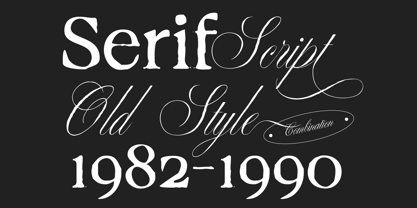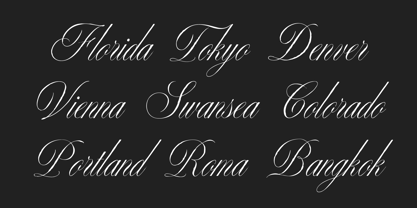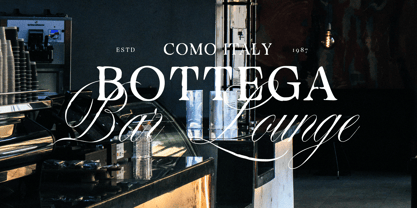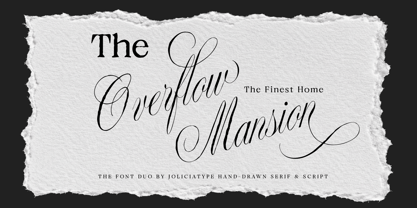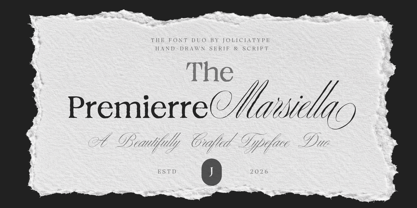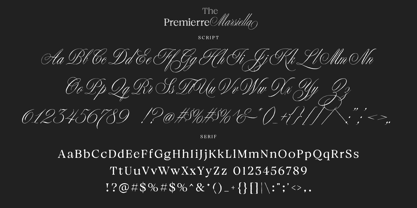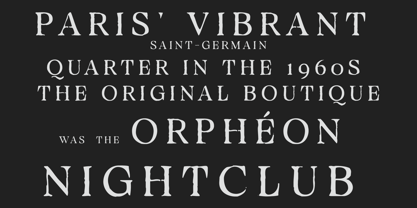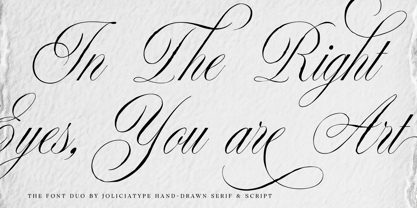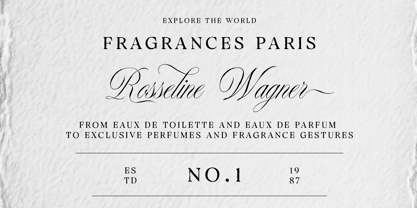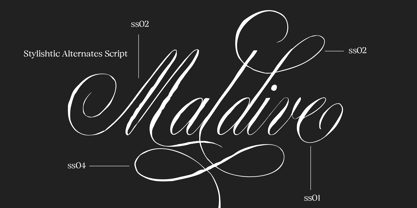
Premierre Marsiella
by Jolicia Type
The Premierre Marsiella Font Family was designed by Laire Banyu and published by Jolicia Type. Premierre Marsiella contains 2 styles and family package options. More about this family
Premierre Marsiella is a luxurious font duo that seamlessly blends the timeless elegance of an oldstyle serif with the graceful charm of a handwritten script. This typeface pairing is designed to create sophisticated visual harmony, combining classic refinement with personal expression in one versatile package. The serif style showcases elegant proportions, refined details, and a premium editorial feel, while the script counterpart flows naturally with smooth strokes and handcrafted character. Inspired by luxury branding, vintage romance, and high-end fashion aesthetics, Premierre Marsiella offers a distinguished and memorable appearance, making it ideal for projects that demand elegance and exclusivity. Whether used separately or together, the contrast between the structured serif and expressive script results in stunning visual compositions that feel both classic and contemporary. This font duo is perfect for luxury branding, wedding invitations, beauty products, fashion labels, boutique logos, packaging design, social media content, editorial layouts, book covers, and premium marketing materials. Premierre Marsiella is crafted to elevate your designs with sophistication, warmth, and timeless luxury.
Designers: Laire Banyu
Foundry: Jolicia Type